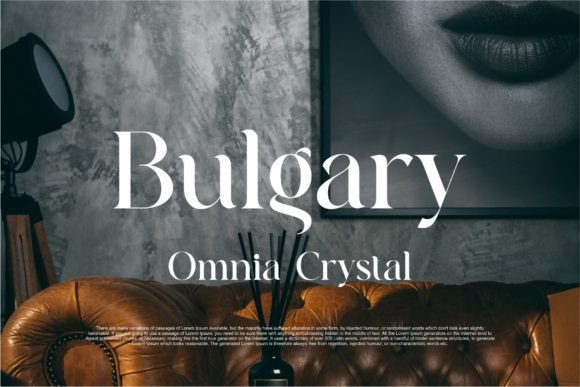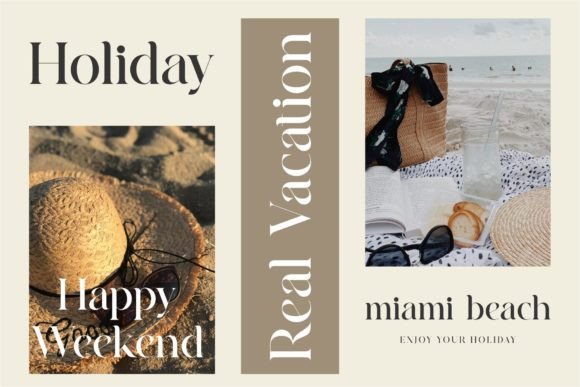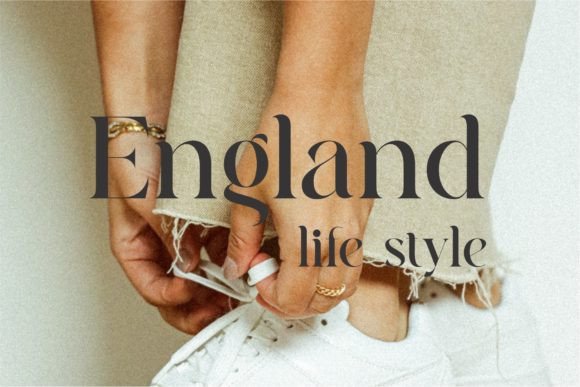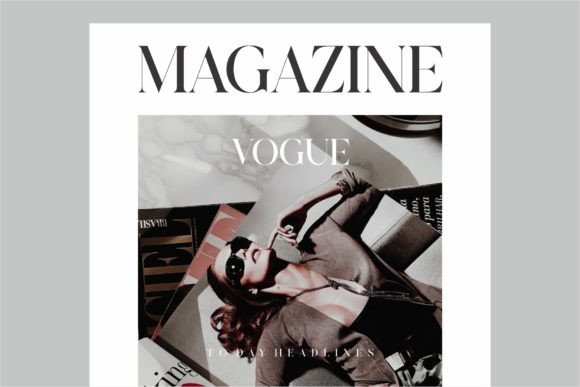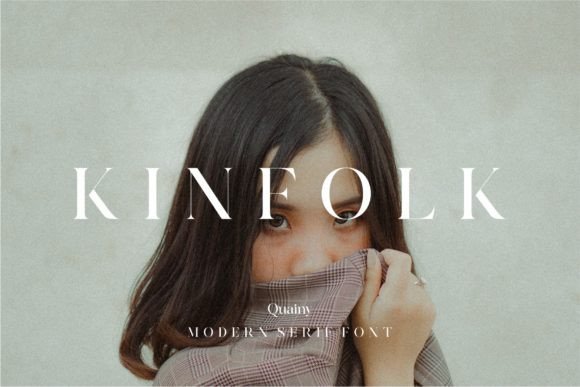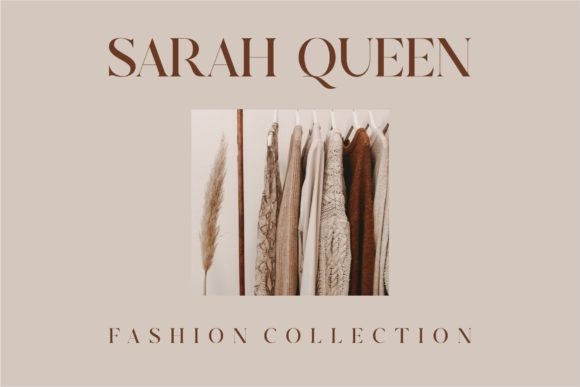
Introduction to Quainy Font Font
Fonts play a crucial role in design, and the Quainy Font font is a typeface that brings both character and versatility to any project. Whether you’re working on a branding project, a website, or a print design, the Quainy Font font offers a unique style that can elevate your work.
**Quainy Serif Font** inspired by the famous minimalist logo perfect for the purposes of designing templates, brochures, videos, advertising branding, logos, invitation, layout design, elegant crafting, beauty design, and more.
**Quainy Serif Font** inspired by the famous minimalist logo perfect for the purposes of designing templates, brochures, videos, advertising branding, logos, invitation, layout design, elegant craftin
The Quainy Font font is more than just a typeface – it’s a design tool that helps you communicate your message with style and clarity. Its unique character set and versatile design make it suitable for a wide range of applications, from elegant invitations to bold headlines.
With its carefully crafted letterforms and balanced proportions, the Quainy Font font ensures readability and visual appeal across all mediums.
The Quainy Font font stands out with its unique design, exceptional readability, and versatility across various design applications.